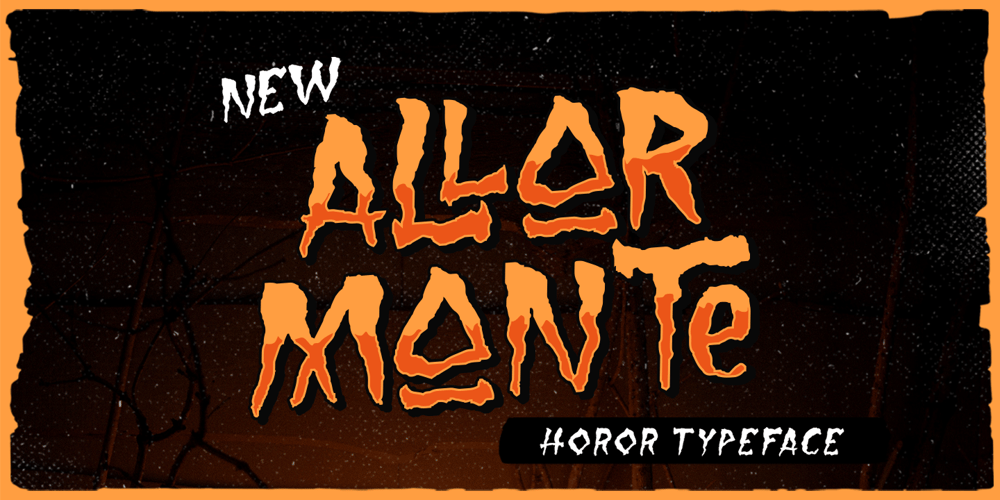
Allarmante
Allarmante font
Allarmante Font Family was designed by Hendry Juanda and published by Letterhend. Allarmante contains 1 styles and family package options. Inspired by Halloween theme. The authentic fontto give you fun and playful feel but scary vibes too. This font perfectly made to be applied especially in logo, and the other various formal forms such as invitations, labels, logos, magazines, books, packaging, stationery, novels, labels or any type of advertising purpose.Features :uppercase & lowercasenumbers and punctuationmultilingualPUA encoded